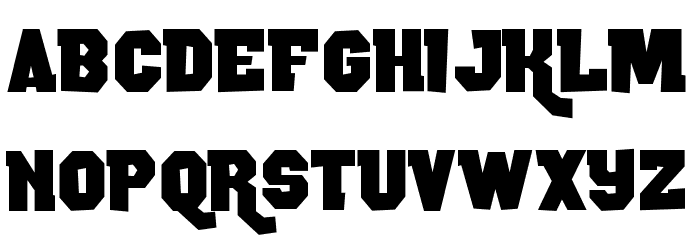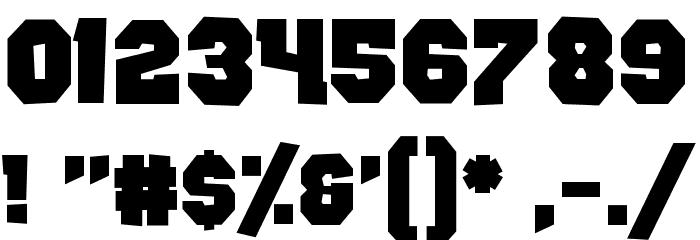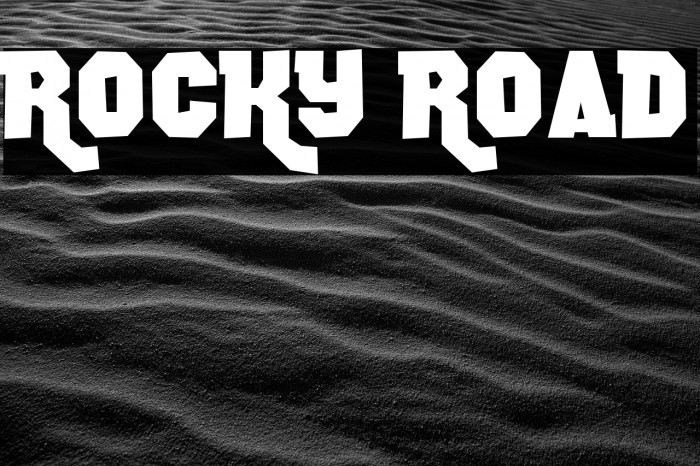
Rocky Road Font
This font features a bold, rugged design with a distinctly angular and geometric style. The characters are heavily stylized with sharp edges and a blocky appearance, giving it a strong, impactful look. The uppercase and lowercase letters maintain a consistent weight, contributing to its bold presence. The numbers and special characters follow the same design principles, ensuring uniformity across all glyphs. This font's unique style makes it stand out, ideal for projects that require a strong visual impact.
A bold, angular font with a rugged, geometric style.
- Proposed Projects: Ideal for posters, logos, video game graphics, and branding that requires a bold, impactful look.